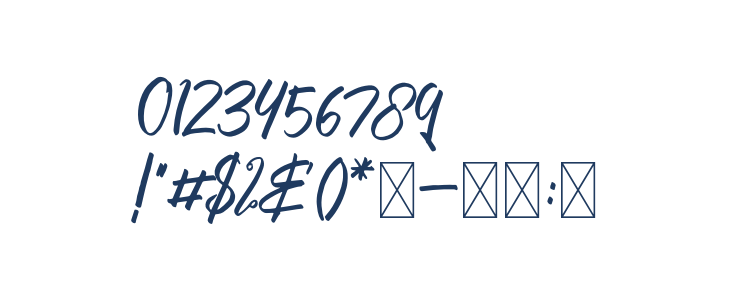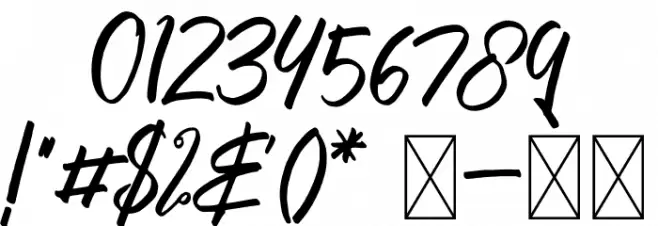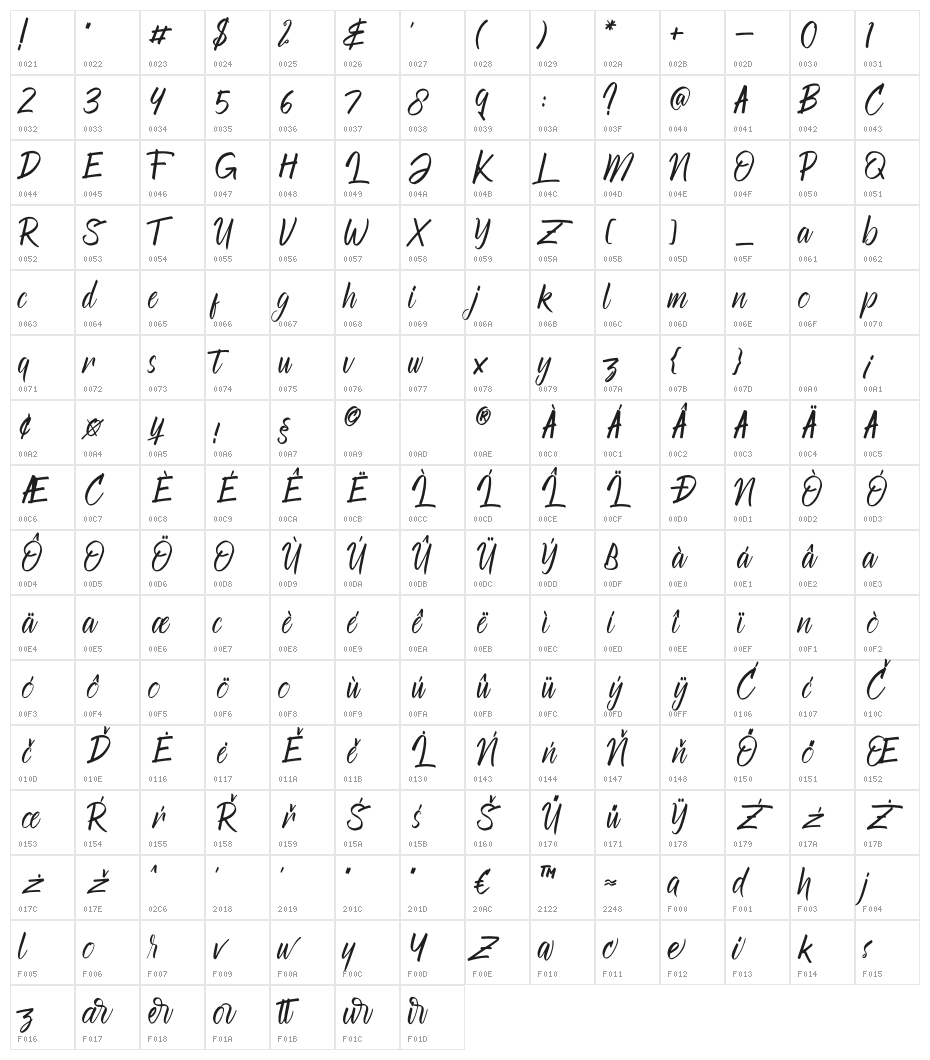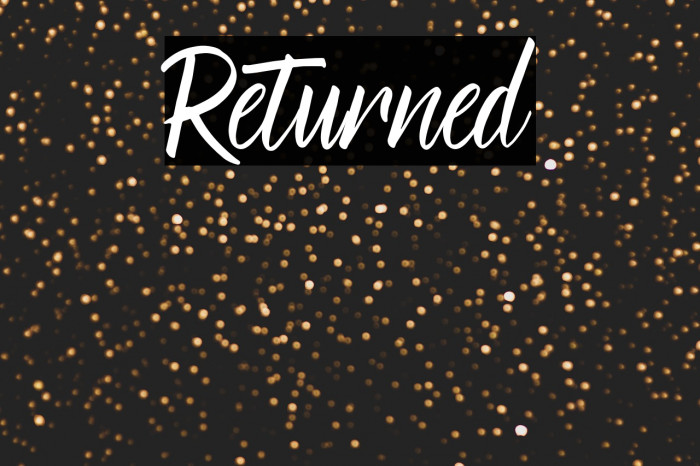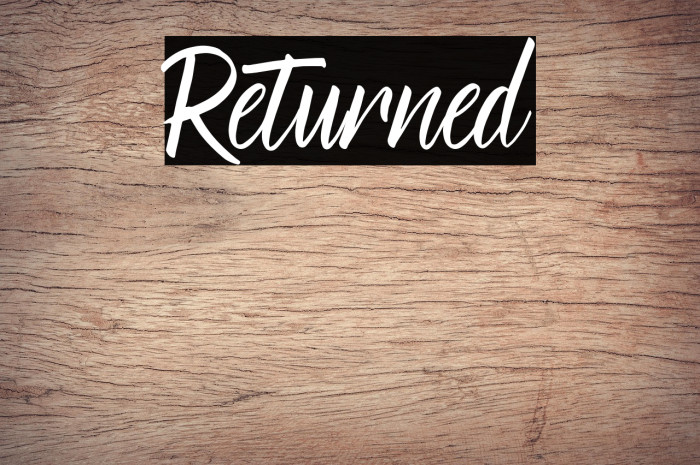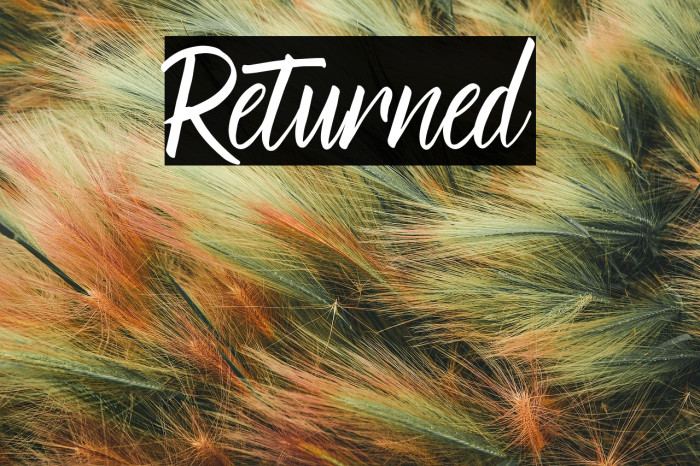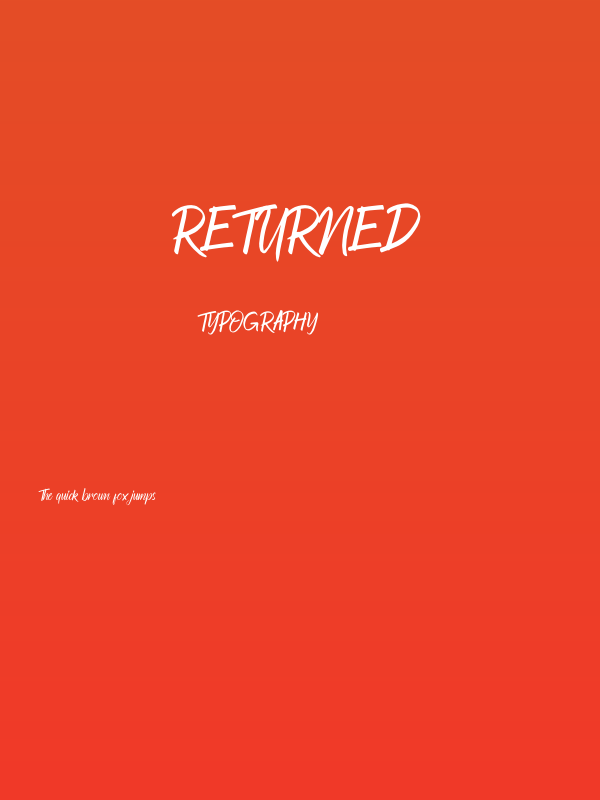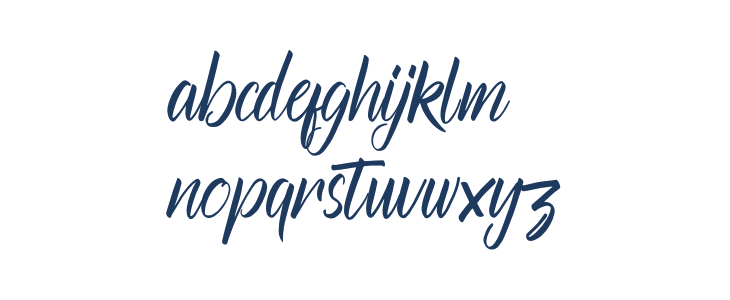
Returned Font
Returned Description
This font features a dynamic and expressive handwritten style, characterized by its fluid and cursive letterforms. The uppercase letters are bold and slightly slanted, giving a sense of movement and energy. The lowercase letters maintain a consistent flow, with some letters extending below the baseline, adding to the font's casual and informal appearance. The numerals are clear and legible, matching the overall style of the alphabet. Special characters are included, maintaining the same handwritten aesthetic. This font is ideal for projects that require a personal touch or a creative flair.
A dynamic, expressive handwritten font with fluid, cursive letterforms from Regular fonts.
- Proposed Projects: Ideal for greeting cards, personal branding, creative posters, and social media graphics.
- Overall Style: Casual, Creative
- Use Case: Headlines, Logos, Invitations